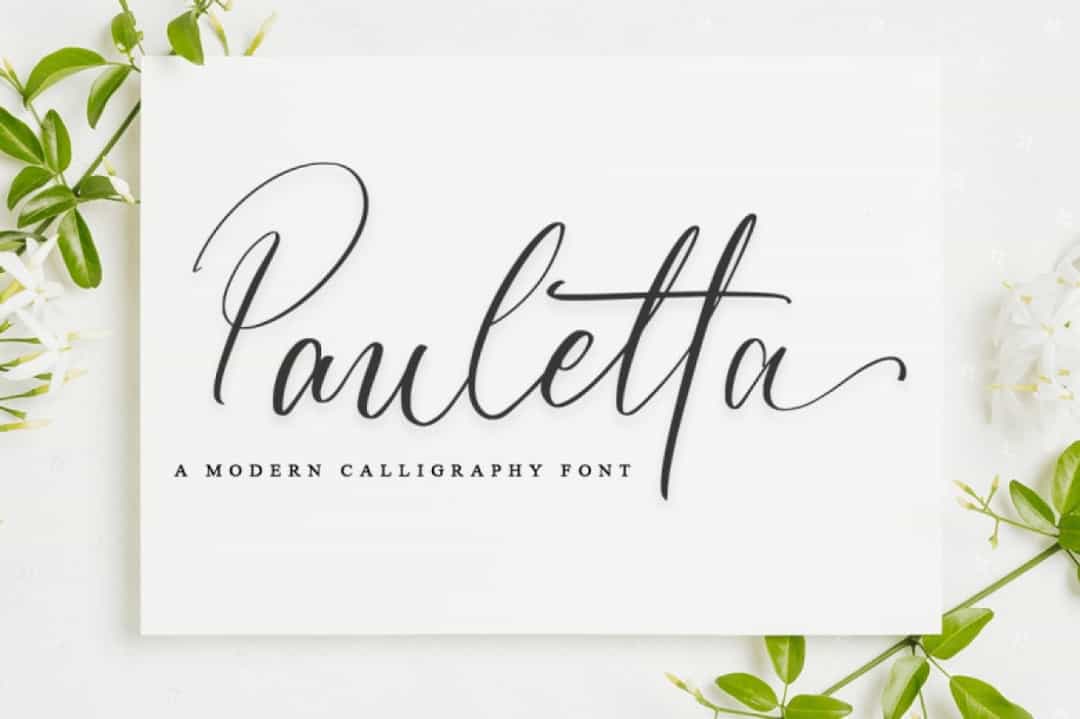
Pauletta is an elegant calligraphy script font which exudes sophistication. Featuring stylish ligatures and alternates that add sophistication, Pauletta is encoded with PUA to allow easy access to every glyph and swash.